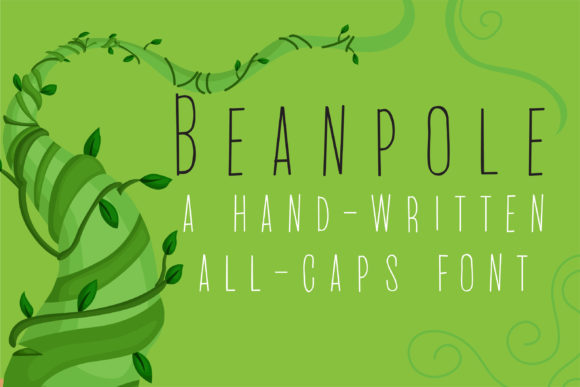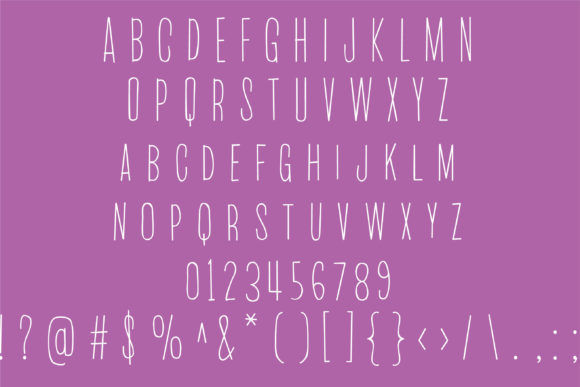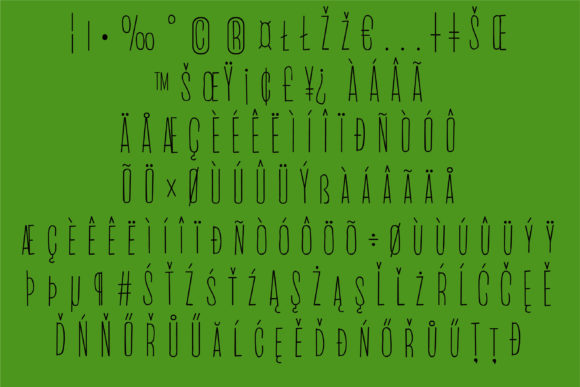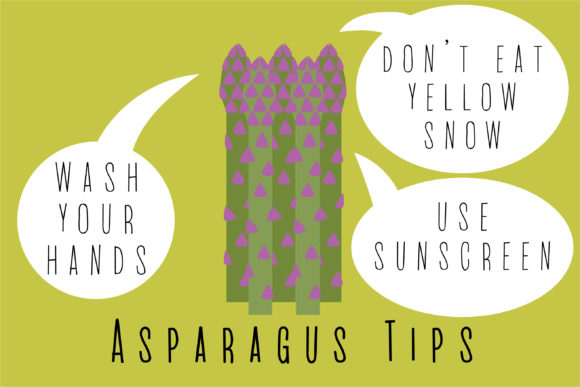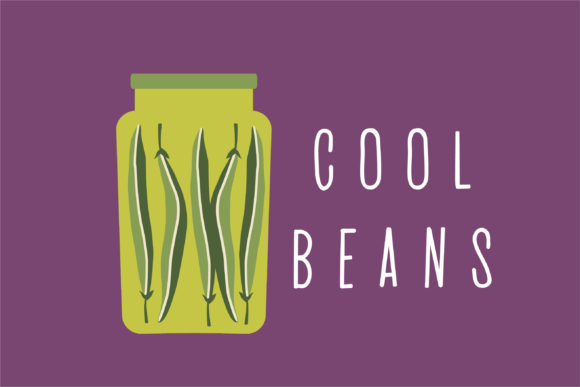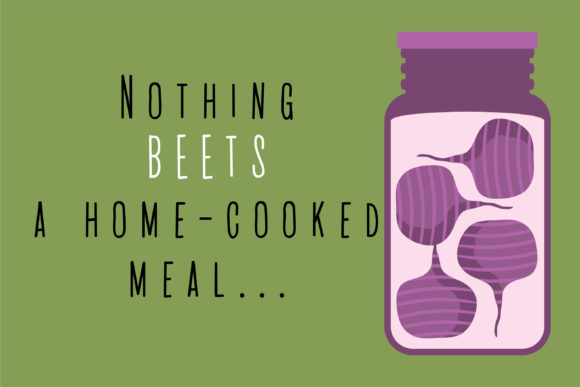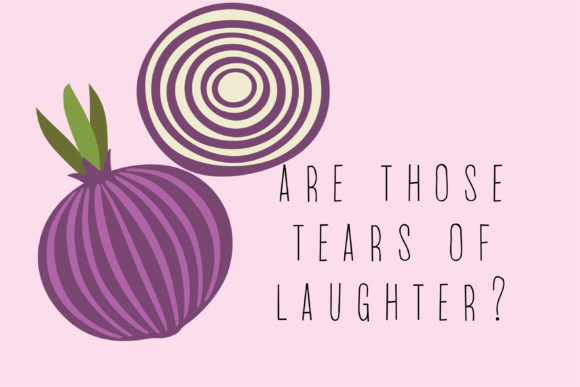
PN Beanpole Font
About PN Beanpole Font
Beanpole is a quirky and clean handwritten font. Its simple style makes it incredibly versatile, fitting a wide range of designs.